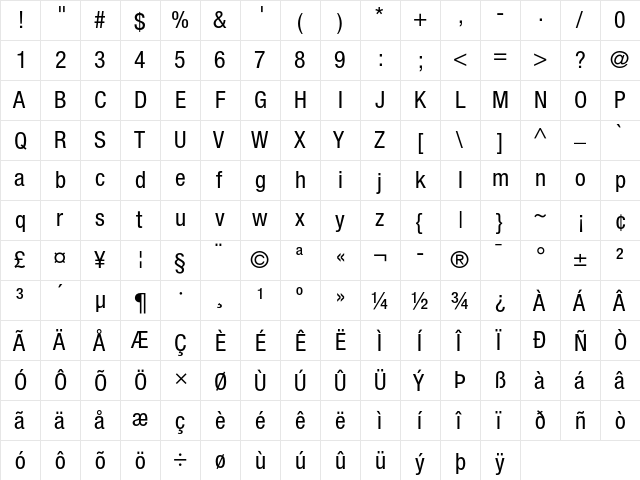
Helvetica Neue 57 Condensed
Design Context for Helvetica Neue Typeface
Helvetica Neue is a composed and adaptable typeface that performs quietly and consistently across a wide range of design contexts. The condensed width makes it efficient for tight spaces without sacrificing legibility.